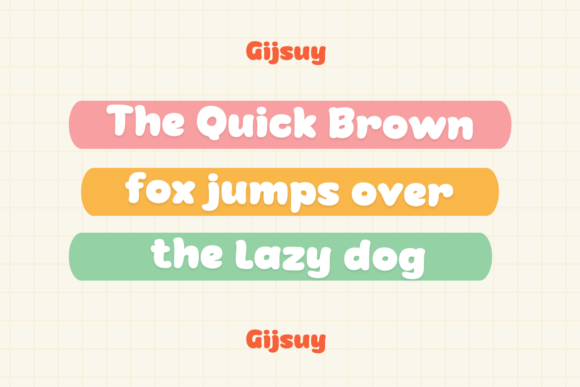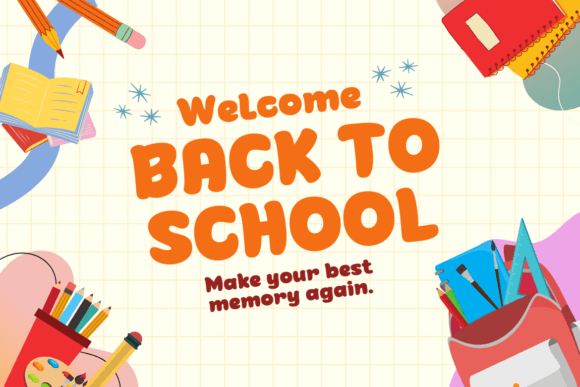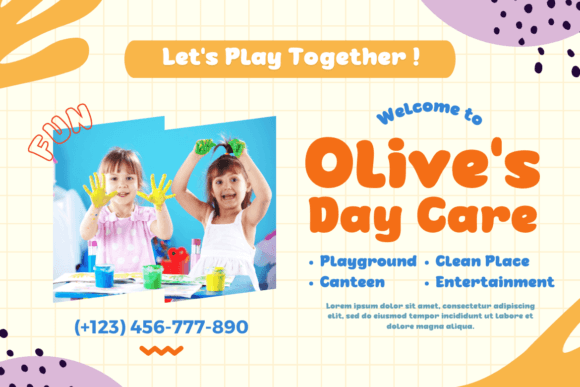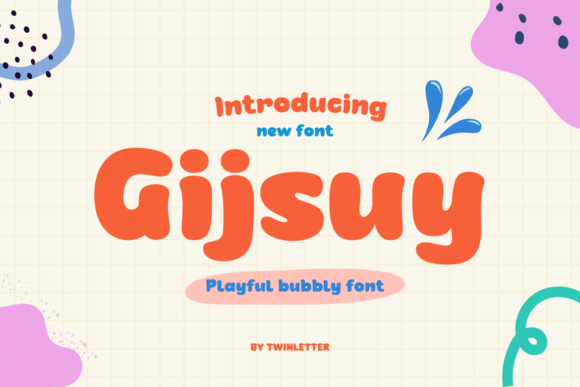
Introduction to Gijsuy Font
Gijsuy is a lovely, friendly, and approachable display font perfect for greeting cards, children’s books, quotes, posters, invitations, business cards, movie title banners, and more.
Key Features of Gijsuy Font